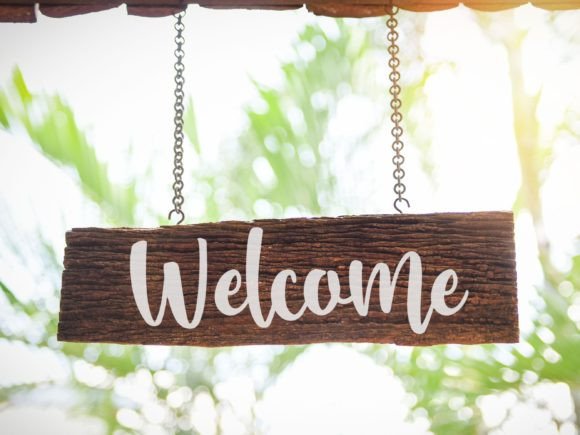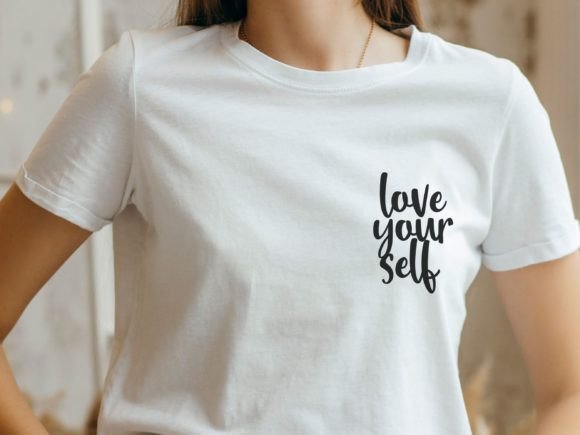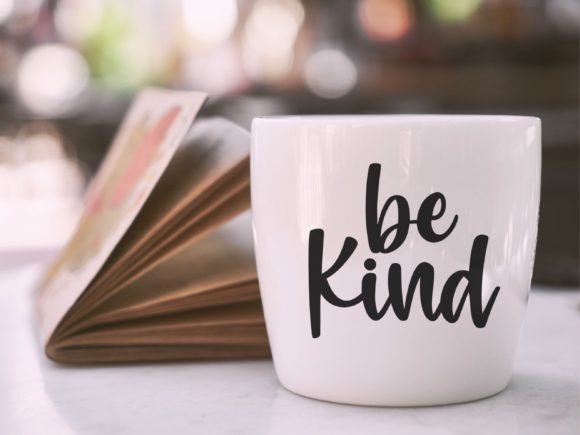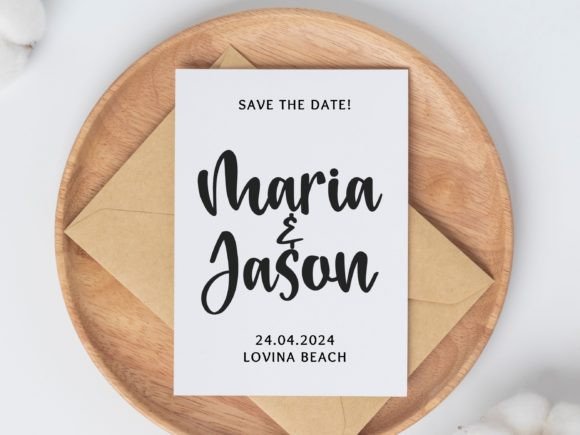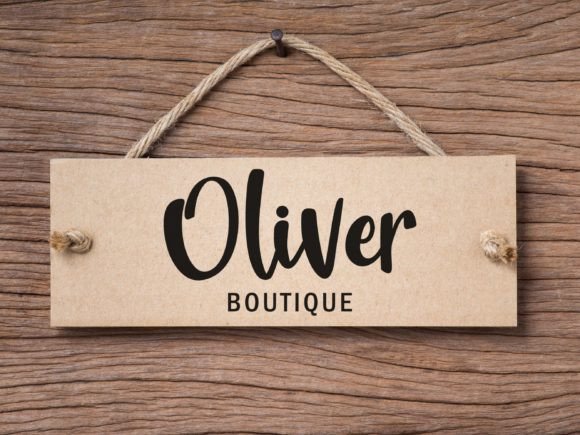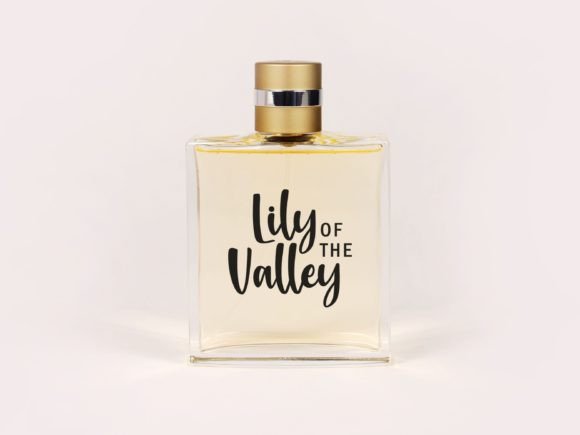
The Butter Milk Font: A Modern Handwriting Script for Authentic Designs
Have you ever been in the middle of a design project, and suddenly, you’re stuck on finding the perfect font? I recall a recent experience where I was working on a branding project for a trendy cafe, and I just couldn’t find a font that captured the right vibe. That’s when I stumbled upon the Butter Milk font, and it completely transformed my design. In this article, we’ll dive into the world of Butter Milk, a modern handwriting script that’s perfect for adding an authentic touch to your designs.
A Personal Encounter with Butter Milk
I was working on a branding project for a trendy cafe, and I needed a font that was soft, yet bold and fun. After hours of searching, I came across Butter Milk, and it was love at first sight! Its natural, handwriting style immediately resonated with me, and I knew it was the perfect fit for my project. The font’s unique charm and character added a touch of warmth and personality to my design, making it stand out from the rest.
An Honest Review of Butter Milk
So, what makes Butter Milk so special? Here are some things I love about this font:
- ✨ Natural and authentic handwriting style
- ✅ Soft, yet bold and fun
- ✅ Perfect for a variety of design projects, from invitation cards to branding
However, like any font, Butter Milk isn’t perfect. Here are a few quirks to keep in mind:
- 🤔 Some characters may not work well in all contexts, so be sure to test the font thoroughly
- ⚠️ The font may not be suitable for very formal or traditional designs
A Practical Guide to Using Butter Milk
The Story Behind Butter Milk
Butter Milk was designed by a talented type designer who wanted to create a font that captured the warmth and personality of handwriting. The designer drew inspiration from traditional handwriting styles and infused the font with a modern twist. The result is a font that’s both authentic and stylish.
| Q: What type of designs is Butter Milk best suited for? | A: Butter Milk is perfect for designs that require a soft, yet bold and fun font, such as invitation cards, flyers, posters, and branding. |
| Q: Is Butter Milk a difficult font to read? | A: No, Butter Milk is a highly legible font that’s easy to read, even at smaller font sizes. |